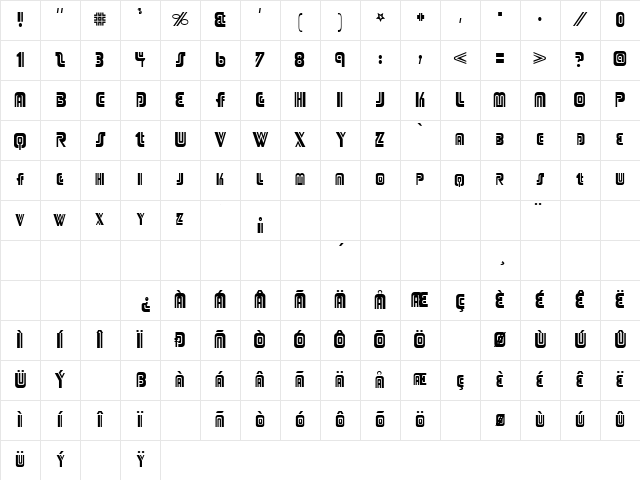
Adriator Regular Free Font
Adriator Regular
Complete Adriator Regular glyph index. Displaying only characters natively supported by Adriator Regular font.
Design Context for Adriator
Adriator is a composed and adaptable typeface that performs quietly and consistently across a wide range of design contexts.